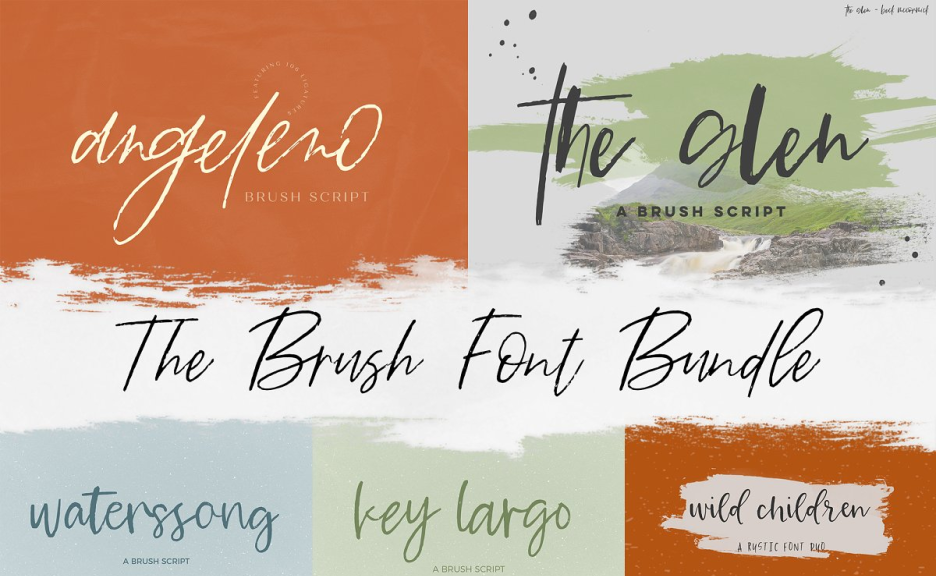
The Brush Font Bundle
The Brush Font Bundle features a curated collection of expressive brush-style fonts, perfect for adding a personal touch to your design projects. With a range of styles and weights, these fonts are ideal for both digital and print applications.
• Multiple brush font styles for versatility
• Includes regular and bold weights
• Handwritten aesthetic suitable for various designs
• Great for creating unique invitations, greeting cards, and posters
• Use in web design for a friendly and approachable feel